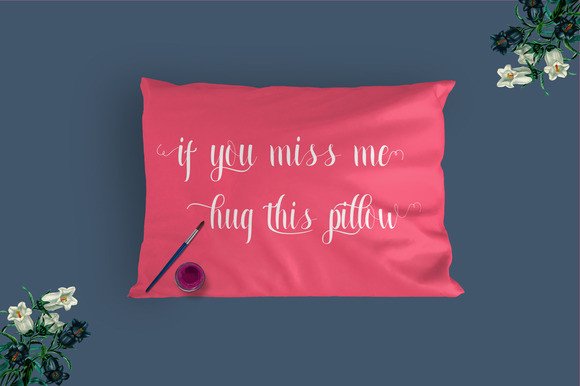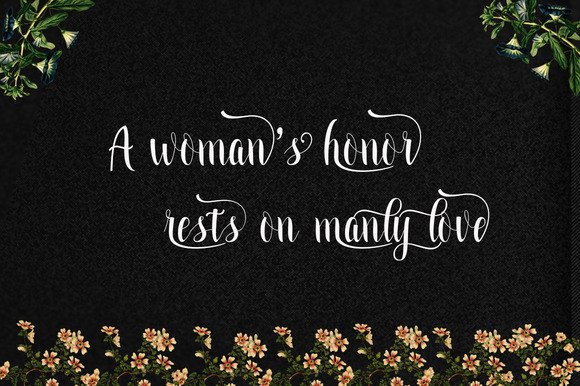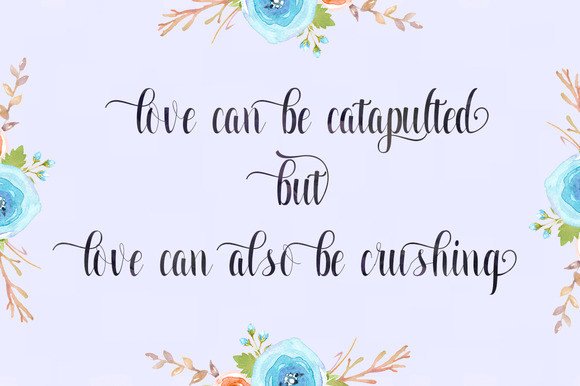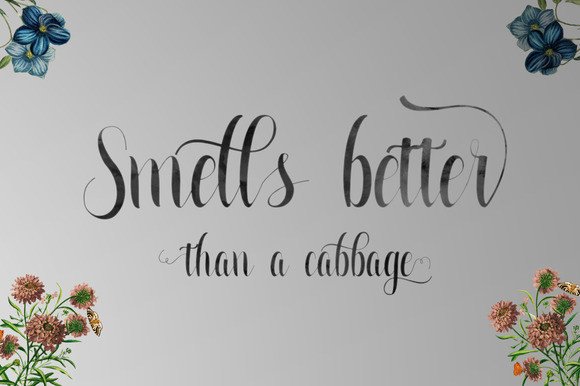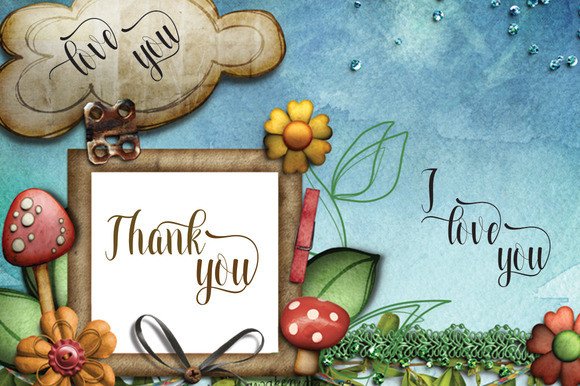
Greatfull Font
About Greatfull Font
‘Greatfull’ is a handmade, modern Calligraphy. It has unique forms of calligraphy and the writing style is very natural. Can be used for various purposes such as headings, logos, wedding invitations, t-shirts, letterheads, signage’s, labels, news, posters, badges, and much more